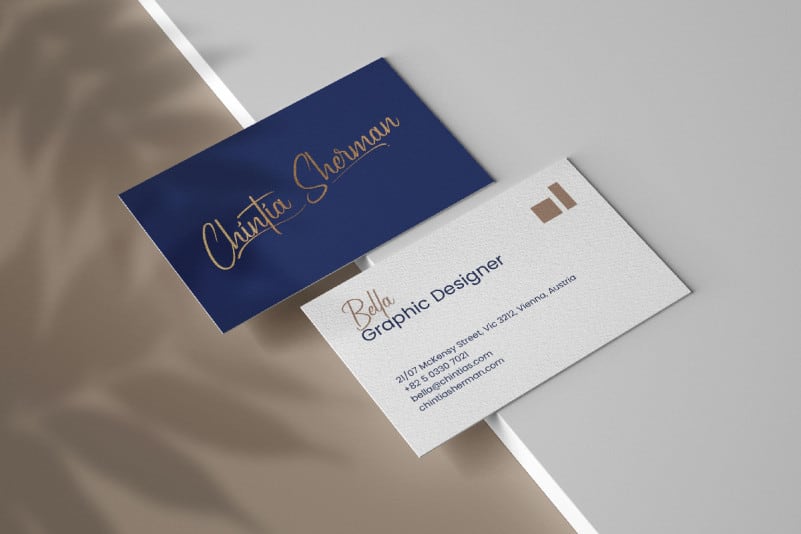
Friday Funny Font
Friday Funny Font is a beautiful shadowed calligraphic font with a cute style and chic decoration on its letters. It will be good to perfect any project design, such as brand image, brochure, cover, custom design, flyer, invitation, label, menu, poster, screen print, signage, sticker, thank you card, title, website, and many more!